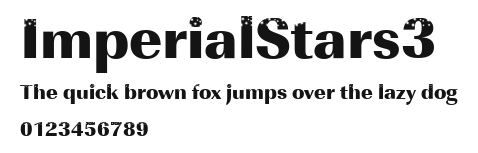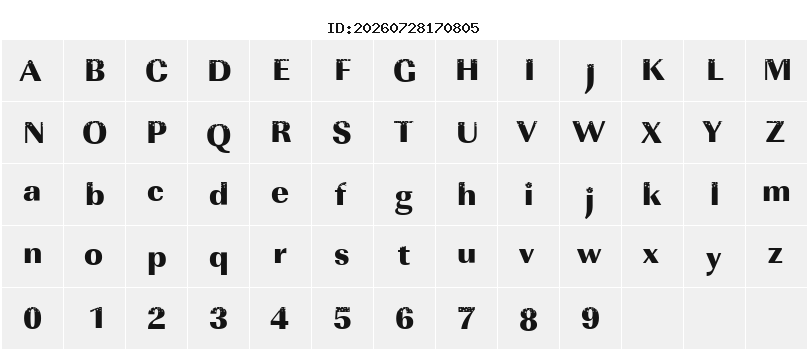
ImperialStars3 Preview
• Font Name: ImperialStars3
• Designer: SoftMaker Software GmbH
• Manufacturer: SoftMaker Software GmbH
About ImperialStars3.ttf
ImperialStars3.ttf is a modern, elegant sans-serif font designed for ultimate readability and visual harmony. Perfect for branding, headlines, web design, and print materials.